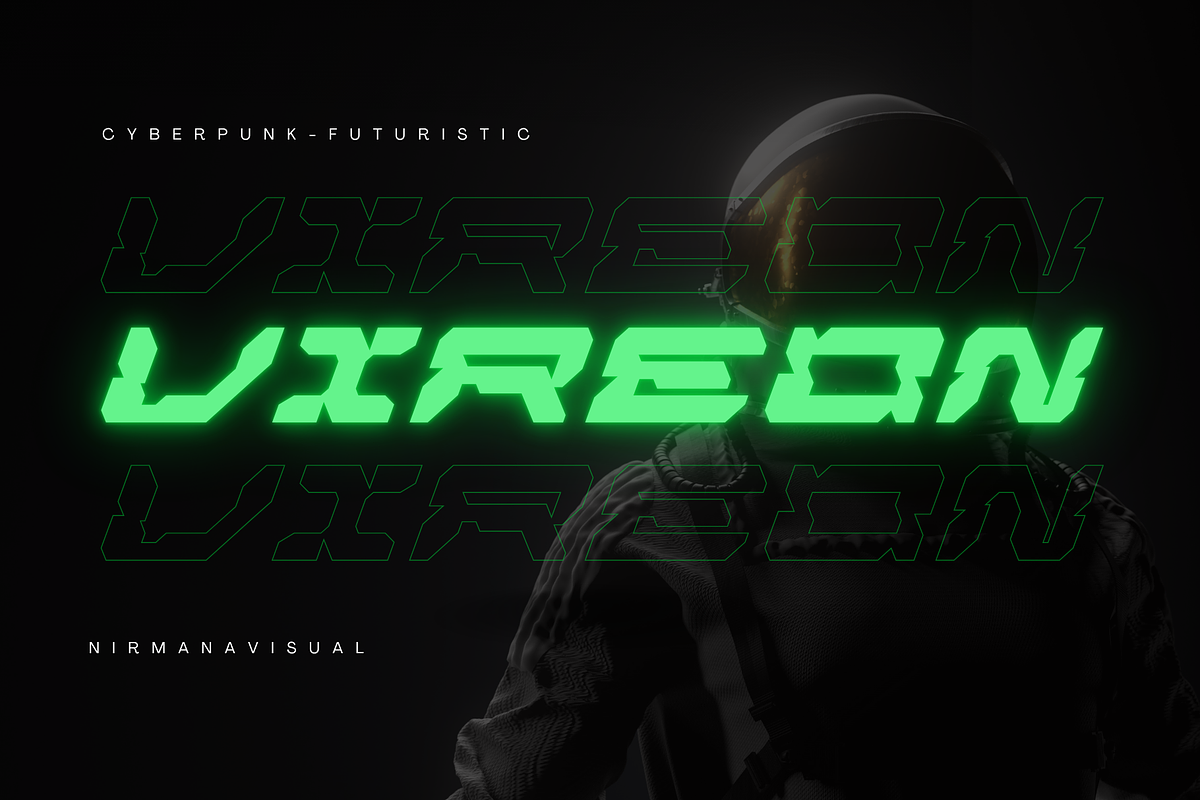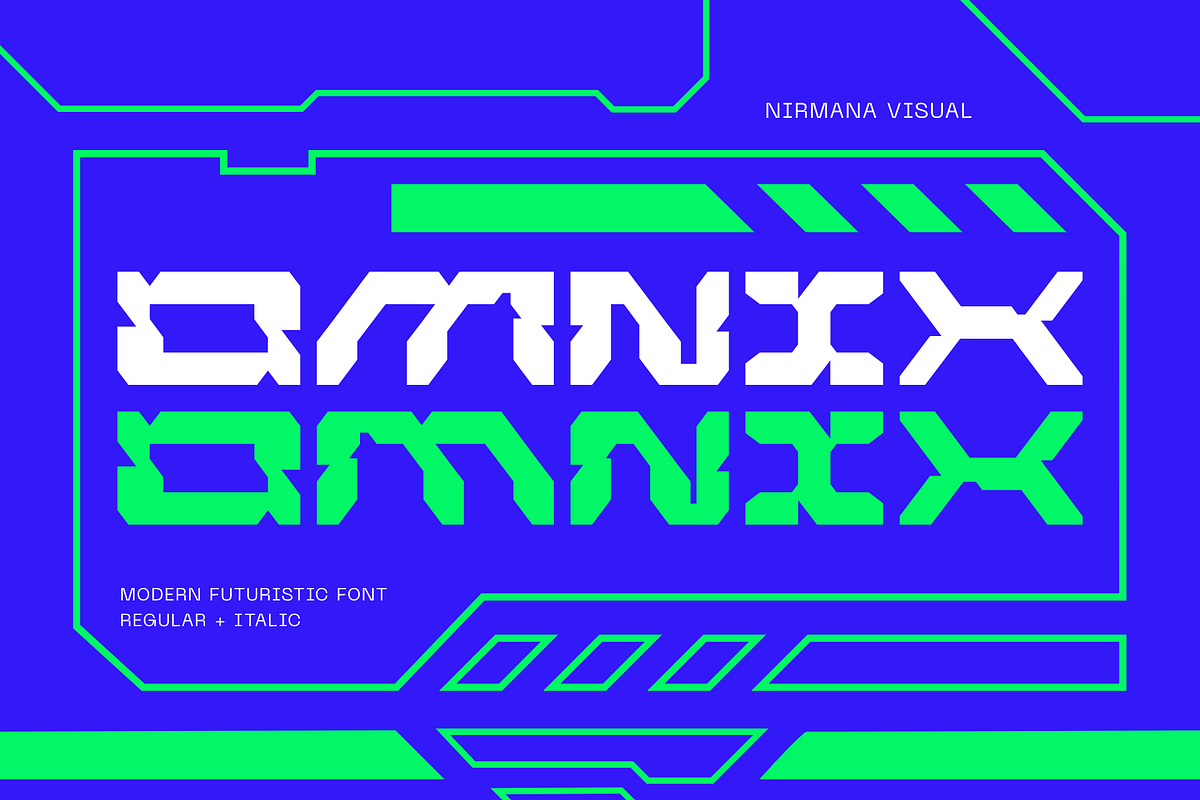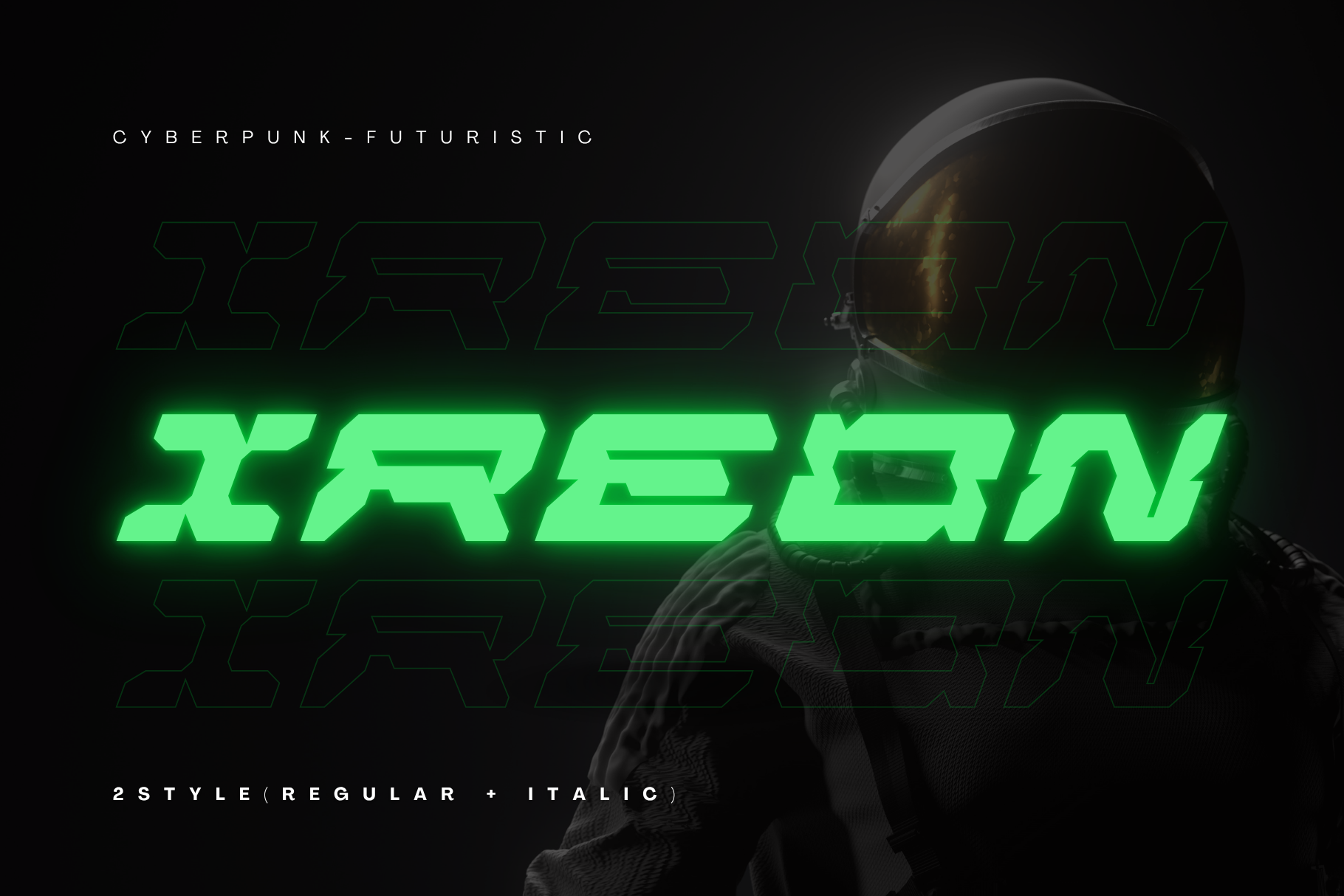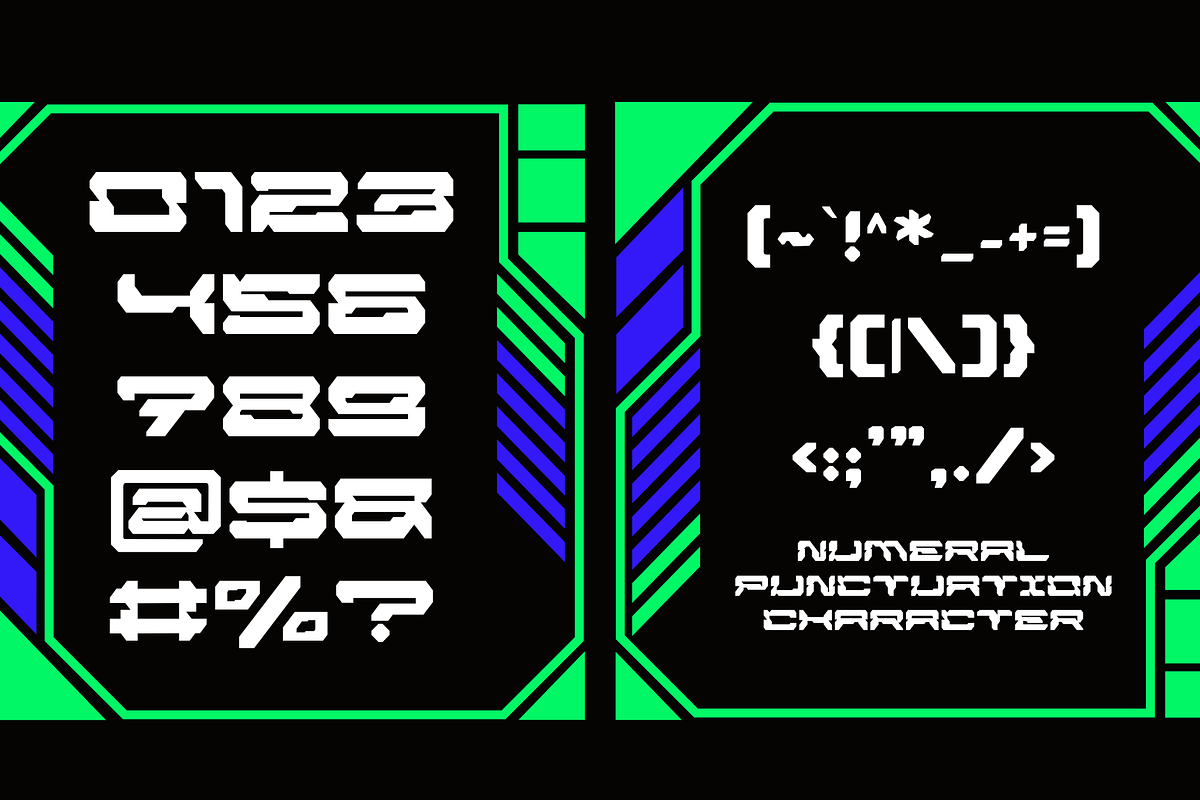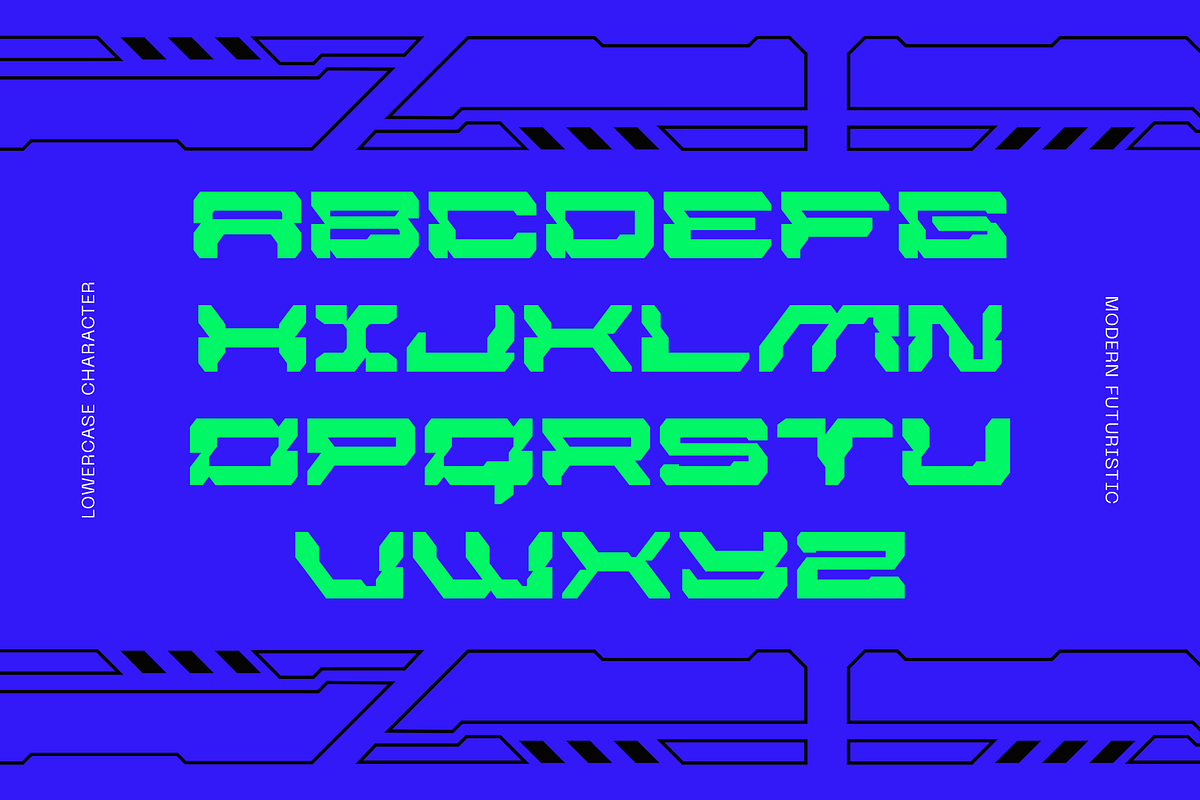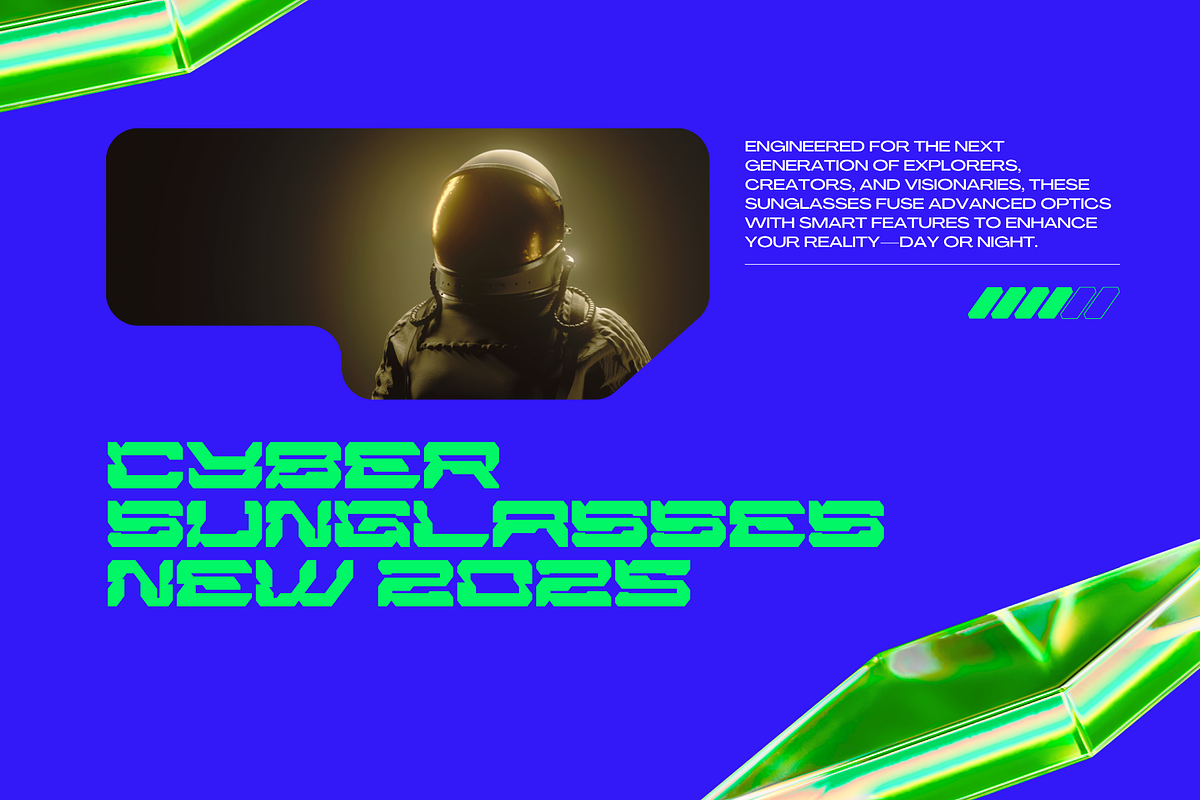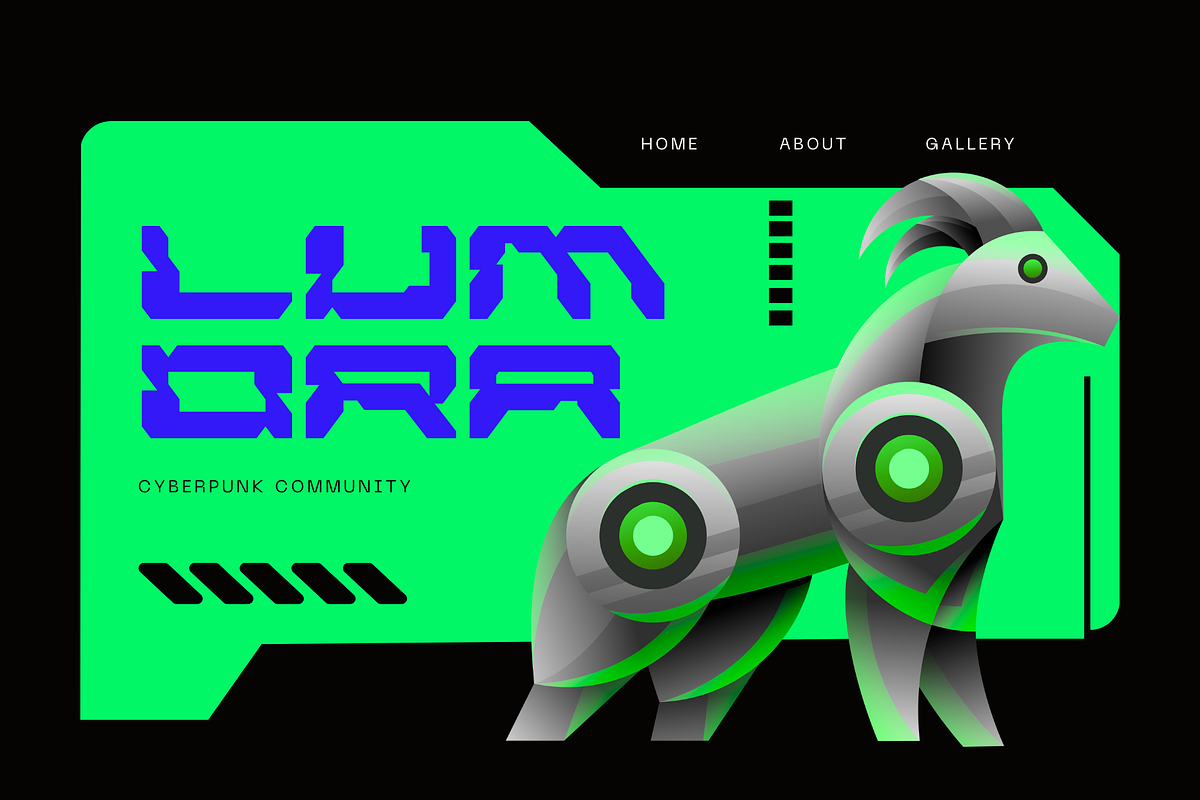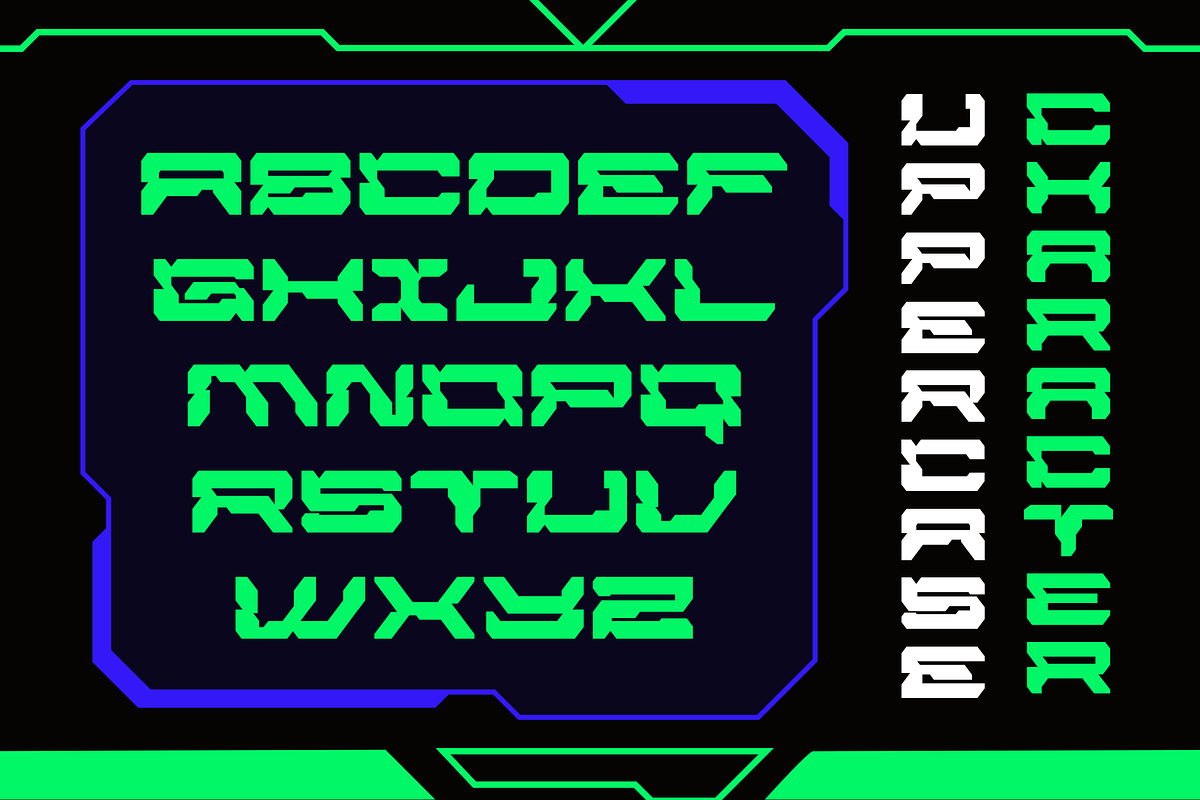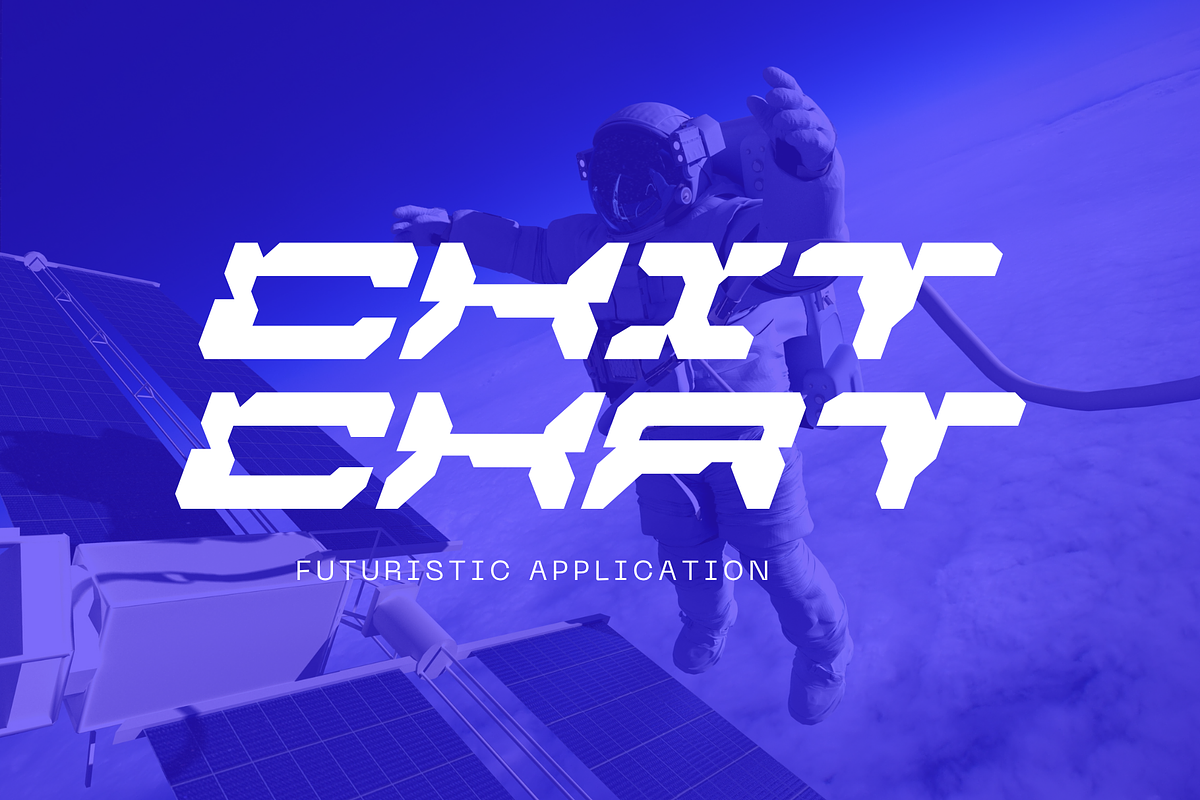
Ireon Cyberpunk - Modern Logo Font
Ireon is a cyberpunk futuristic font that blends sharp geometric lines with sleek curves, creating a modern, high-tech aesthetic. Perfect for sci-fi interfaces, tech branding, and gaming titles, Ireon offers both Regular and Italic styles to enhance visual impact. Its bold, angular design evokes neon-lit cityscapes and digital worlds, making it ideal for projects that demand a cutting-edge, dystopian flair.